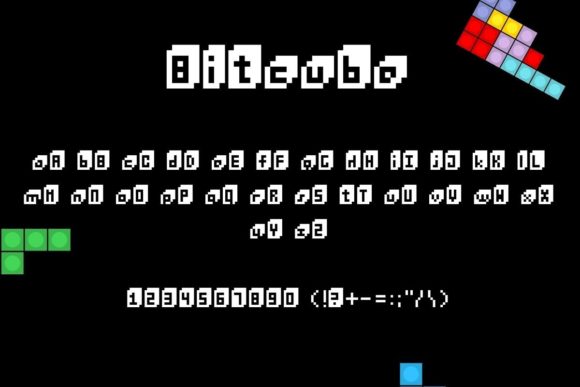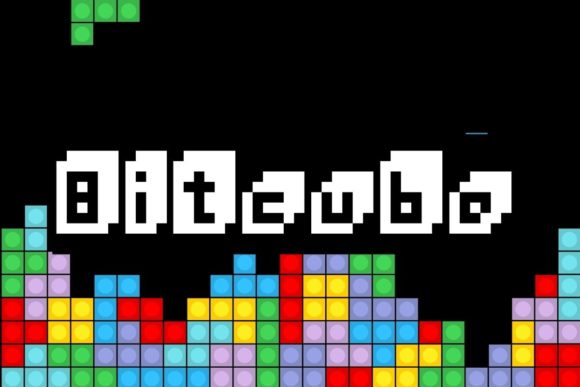
Introducing Bitcube Font: A Retro Display Font for Nostalgic Designs
Are you a designer or crafter looking for a font that captures the essence of the iconic arcade games of the 1980s? Look no further than Bitcube Font, a retro display font that is sure to bring a touch of nostalgia to your next design project. Inspired by the pixelated graphics of classic arcade games, Bitcube Font is a pixel-style typeface that is perfect for creating eye-catching and retro-style designs.
The Inspiration Behind Bitcube Font
Bitcube Font is inspired by the iconic arcade games of the 1980s, such as Pac-Man, Donkey Kong, and Galaga. These games featured pixelated graphics that have become synonymous with the era. The font’s creator aimed to capture the essence of these classic games and bring it to modern designs. The result is a font that is both nostalgic and modern, perfect for designers who want to create designs that pay homage to the past.
Key Features of Bitcube Font
So, what makes Bitcube Font so special? Here are some of its key features:
- Pixel-style typeface: Bitcube Font features a pixel-style typeface that is reminiscent of classic arcade games.
- White background: The font comes with a white background, which helps to emphasize the text and make it stand out.
- Retro display font: Bitcube Font is designed to be used as a display font, making it perfect for headings, titles, and other prominent text.
- Nostalgic feel: The font has a distinctly nostalgic feel that is sure to appeal to designers who love retro-style designs.
Use Cases for Bitcube Font
Bitcube Font is a versatile font that can be used in a variety of design projects. Here are some use cases to consider:
- Retro-style posters: Use Bitcube Font to create eye-catching posters that pay homage to the iconic arcade games of the 1980s.
- Logo design: The font’s pixel-style typeface makes it perfect for creating logos that have a retro feel.
- Web design: Use Bitcube Font to add a touch of nostalgia to your website’s design.
- Print design: The font is perfect for print design projects, such as brochures, flyers, and business cards.
Tips for Using Bitcube Font
Here are some tips for using Bitcube Font in your design projects:
- Use it sparingly: Bitcube Font is a bold font that can be overwhelming if used excessively. Use it sparingly to add emphasis to your design.
- Pair it with other fonts: Consider pairing Bitcube Font with other fonts to create a unique and interesting design.
- Experiment with colors: The font’s white background makes it easy to experiment with different colors and textures.
Bitcube Font is a retro display font that is perfect for designers and crafters who want to add a touch of nostalgia to their designs. With its pixel-style typeface and white background, it’s ideal for creating eye-catching and retro-style designs. Whether you’re creating posters, logos, or websites, Bitcube Font is a versatile font that is sure to inspire your next design project.